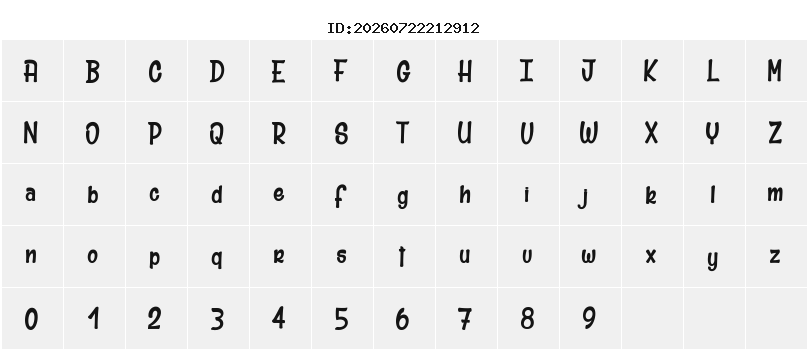
Mr Sunshine 2 Preview
• Font Name: Mr Sunshine 2
• Designer: dcoxy Medina Gregory
About Mr Sunshine 2.ttf
Mr Sunshine 2.ttf is a modern, elegant sans-serif font designed for ultimate readability and visual harmony. Perfect for branding, headlines, web design, and print materials.